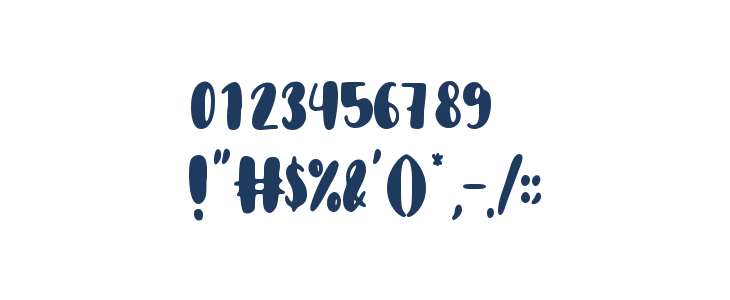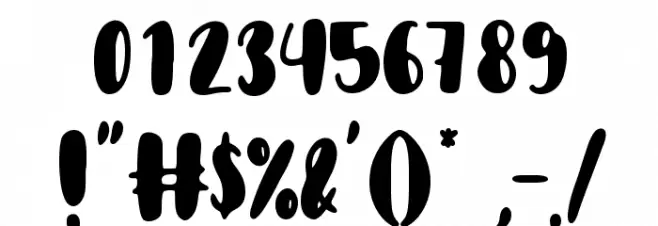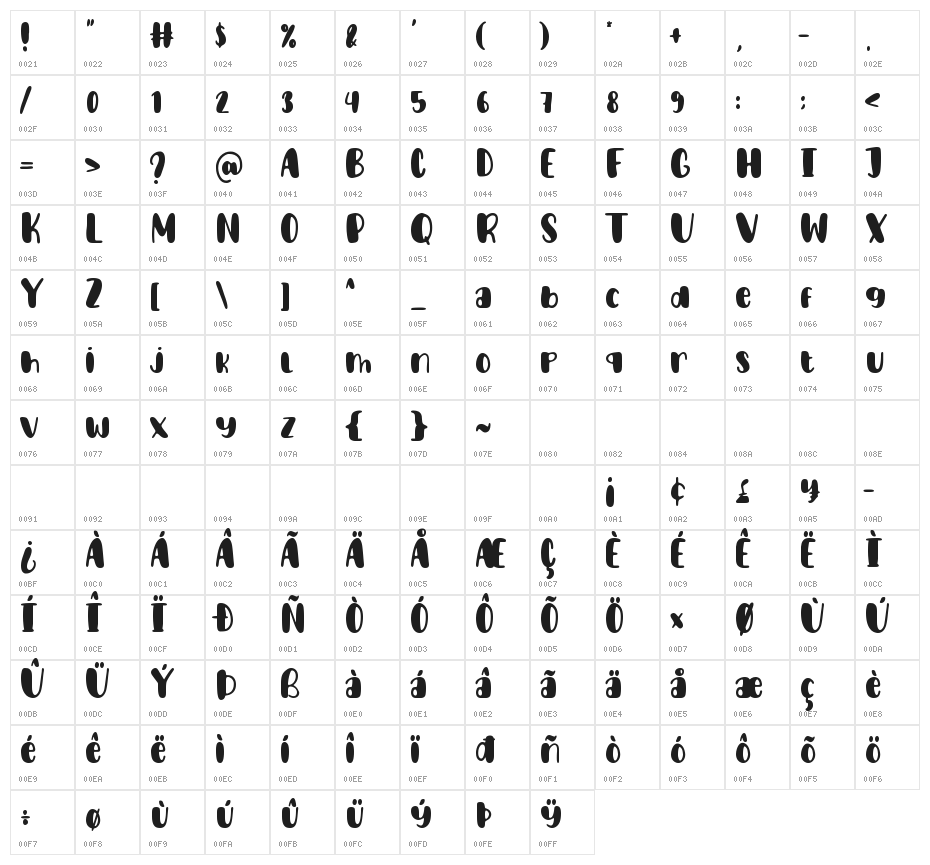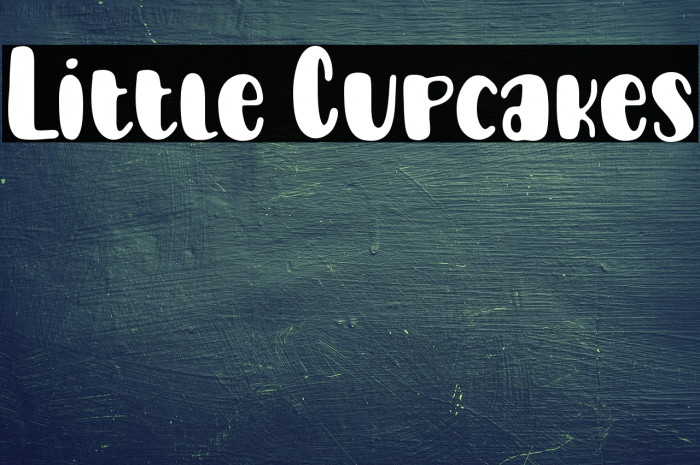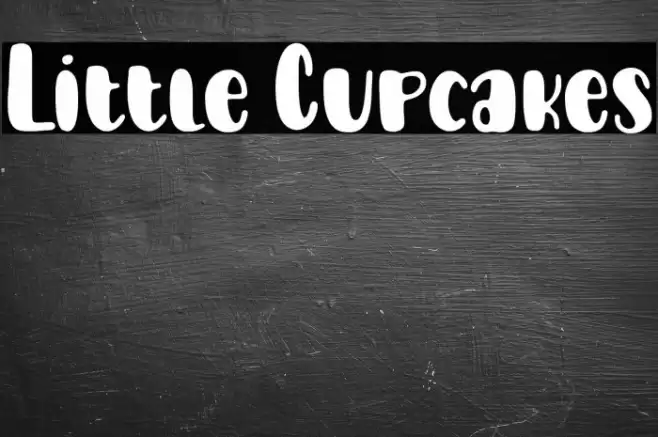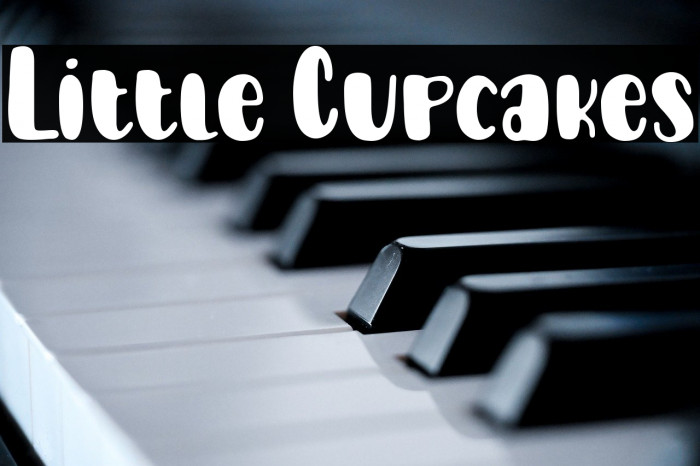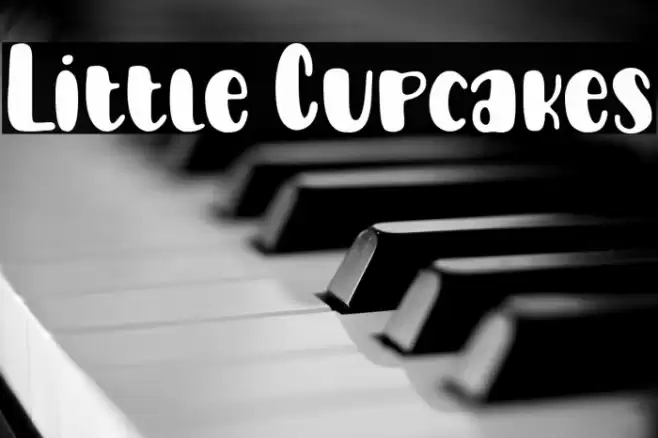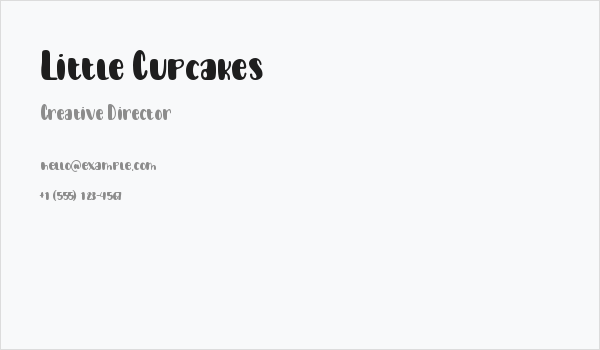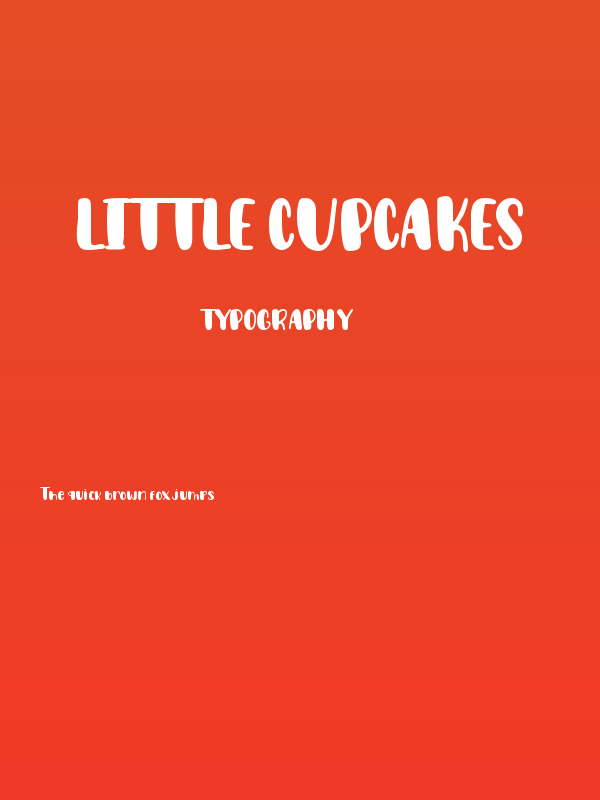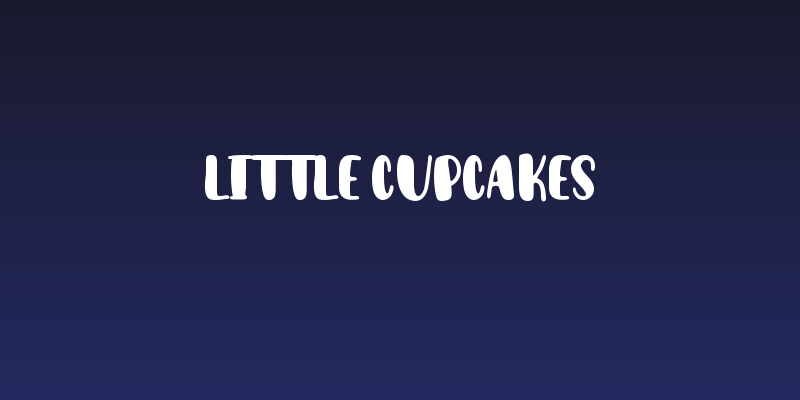
Little Cupcakes Font
Little Cupcakes Description
This playful and whimsical font features bold, rounded characters with a hand-drawn feel. The letters have a consistent thickness, giving them a smooth and friendly appearance. The uppercase and lowercase letters maintain a cohesive style, with slight variations that add charm and personality. The numbers and special characters follow the same design principles, ensuring a uniform look across all elements. This font's bubbly and informal style makes it perfect for projects that require a touch of fun and creativity.